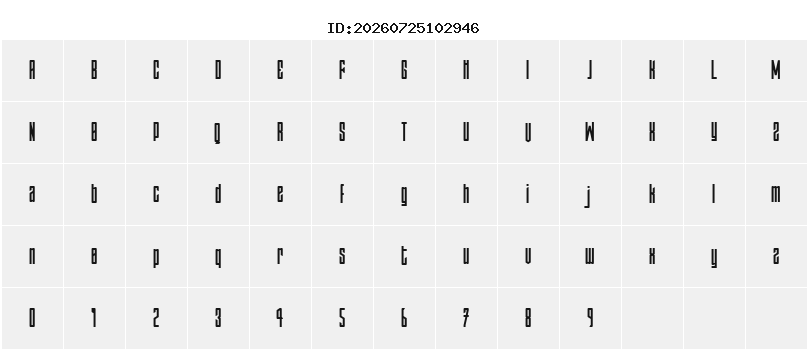
• Font Name: Gestalt
• Designer: Barbara Masson
About Gestalt.ttf
Gestalt.ttf is a modern, elegant sans-serif font designed for ultimate readability and visual harmony. Perfect for branding, headlines, web design, and print materials.